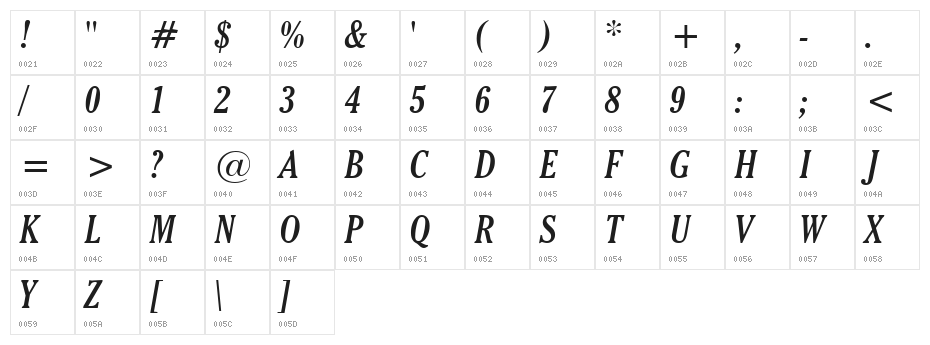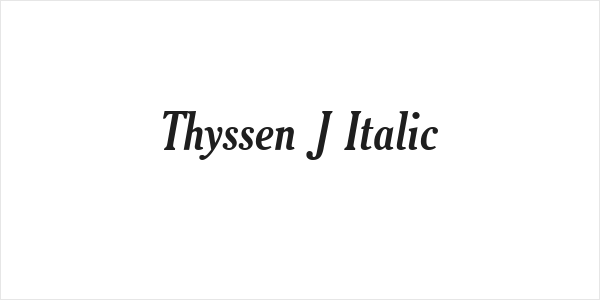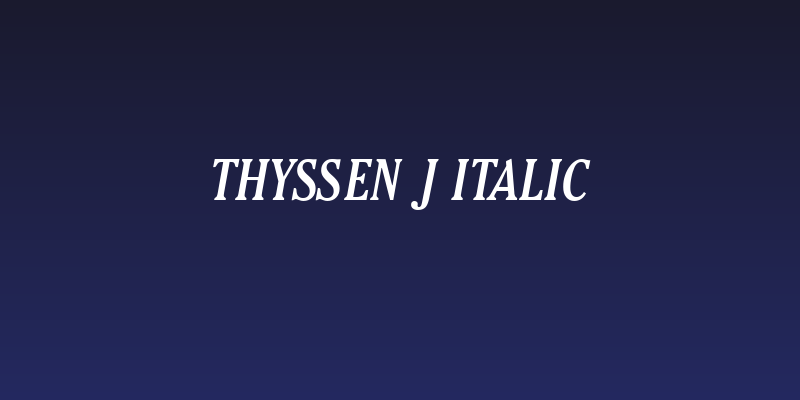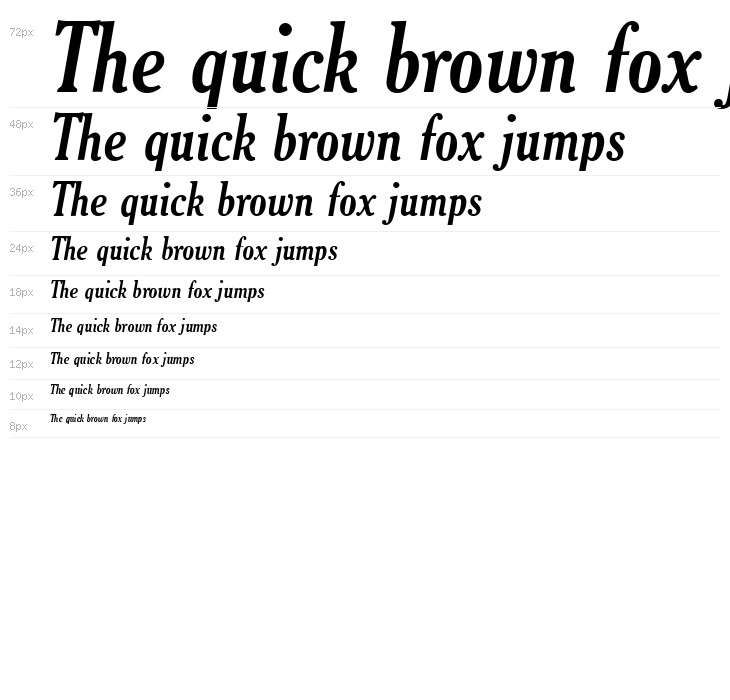
Thyssen J Italic Font
Thyssen J Italic Description
This font features a classic serif style with a distinct italic slant, giving it a sophisticated and elegant appearance. The characters are well-defined with moderate stroke contrast, enhancing readability while maintaining a refined look. The serifs are pronounced yet not overly exaggerated, contributing to a balanced and harmonious design. The font's italic nature adds a dynamic and flowing quality, making it suitable for emphasizing text without sacrificing clarity. Its overall style is timeless, combining traditional serif elements with a modern twist, making it versatile for various design applications.